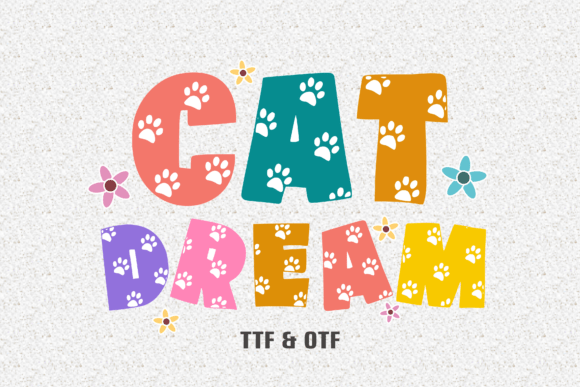
Unleashing Creativity with Cat Dream Font: The Wild and Whimsical Typeface
In the realm of typography, few fonts manage to capture the essence of the animal kingdom as effectively as Cat Dream. This beguilingly distinctive typeface has been making waves in the design world, offering a unique blend of quirkiness and charm that perfectly encapsulates the spirit of the wild. With its paw print elements and stout strokes, Cat Dream breathes life into any design, cultivating a daring aesthetic that hints at the free-spiritedness of the wilderness.
What Makes Cat Dream So Unique?
Cat Dream’s personality is defined by its offbeat essence, effortlessly infusing a dash of quirkiness into any project. The font’s design is inspired by the playful and curious nature of cats, with each letter and symbol featuring distinctive paw print elements that add a touch of whimsy to any design. The stout strokes and bold lines of Cat Dream also give it a rugged, adventurous feel that’s perfect for designs that require a bit of edge.
Whether you’re working on posters, branding logos, comic strips, advertisements, animations, or imaginative titles, Cat Dream is the perfect choice for designers looking to add a bit of wildness to their creations. The font’s versatility and unique charm make it an excellent addition to any design project, allowing designers to create designs that truly roar with creativity.
Endless Design Possibilities with Cat Dream
One of the most exciting aspects of Cat Dream is its wide range of design applications. The font’s bold and playful personality makes it perfect for a variety of projects, from:
- Posters and flyers: Add a touch of wildness to your promotional materials with Cat Dream’s bold and eye-catching letters.
- Branding logos: Create a memorable and distinctive brand identity with Cat Dream’s unique paw print elements.
- Comic strips and cartoons: Bring your characters to life with Cat Dream’s playful and adventurous feel.
- Advertisements: Grab attention and make a statement with Cat Dream’s bold and daring aesthetic.
- Animations and videos: Add a touch of whimsy and personality to your animations and videos with Cat Dream’s quirky charm.
- Imaginative titles: Create captivating and creative titles for books, movies, and more with Cat Dream’s bold and adventurous feel.
With Cat Dream, the possibilities are endless, and designers are free to explore their creativity and bring their wildest ideas to life.
Tips for Using Cat Dream Effectively
To get the most out of Cat Dream, here are a few typography tips to keep in mind:
- Experiment with font sizes: Cat Dream looks great in a variety of font sizes, from bold and eye-catching headlines to smaller, more subtle text.
- Play with color: Cat Dream’s bold and playful personality really comes alive with bright and bold colors.
- Mix and match: Don’t be afraid to combine Cat Dream with other fonts to create a unique and eye-catching design.
- Keep it simple: While Cat Dream is a bold and playful font, it’s best to keep your design simple and uncluttered to really make the font shine.
By following these tips, designers can unlock the full potential of Cat Dream and create designs that are truly unforgettable.
Finding Inspiration with Cat Dream
For designers looking for inspiration, Cat Dream is the perfect place to start. The font’s wild and whimsical personality is sure to spark creativity and get those creative juices flowing. Whether you’re a seasoned designer or just starting out, Cat Dream is a great way to:
- Explore new ideas: Cat Dream’s unique charm and personality can help designers think outside the box and come up with fresh and exciting ideas.
- Develop your style: With Cat Dream, designers can create a distinctive and recognizable style that’s all their own.
- Take risks: Cat Dream’s bold and playful personality encourages designers to take risks and try new things.
So why not jump into the wilderness with Cat Dream and let your creative ventures pounce with ferocity and charm? With this amazing font, the possibilities are endless, and the results are sure to be unforgettable.
In conclusion, Cat Dream is a truly unique and captivating typeface that perfectly encapsulates the spirit of the animal kingdom. With its paw print elements, stout strokes, and bold personality, Cat Dream is the perfect choice for designers looking to add a bit of wildness and whimsy to their creations. Whether you’re working on posters, branding logos, comic strips, or imaginative titles, Cat Dream is sure to bring a touch of creativity and charm to your designs. So why wait? Unleash your creativity with Cat Dream and let your designs roar with wildness and imagination.